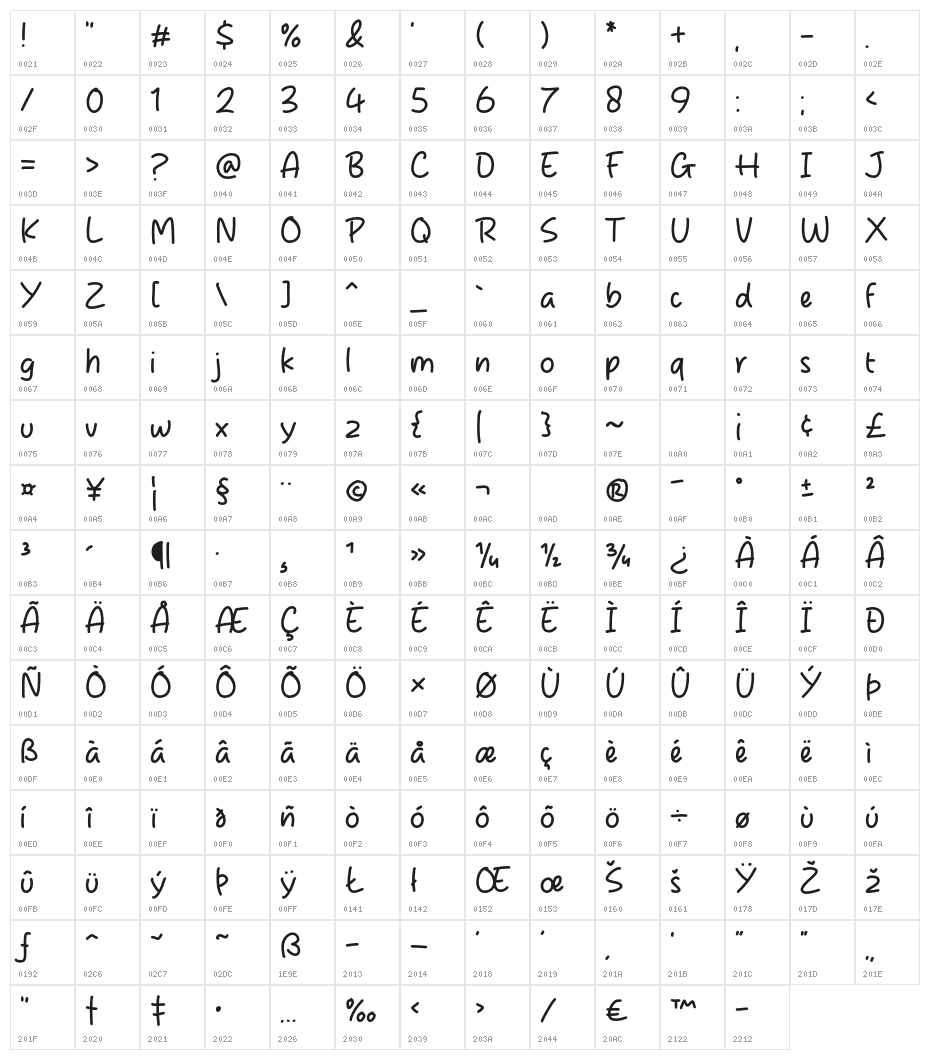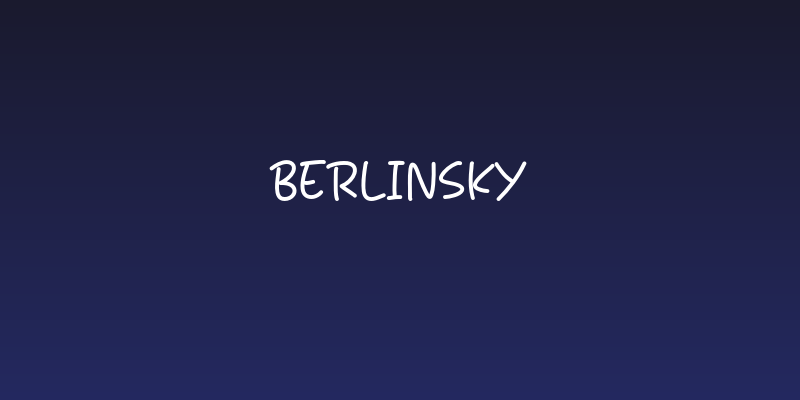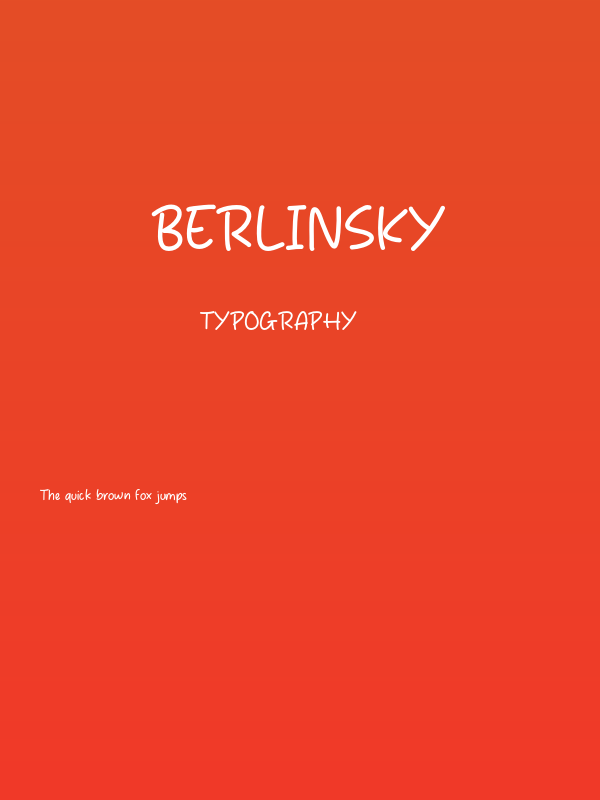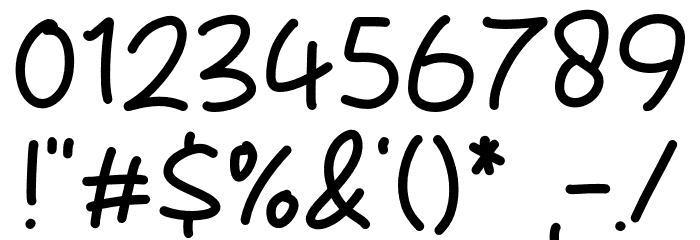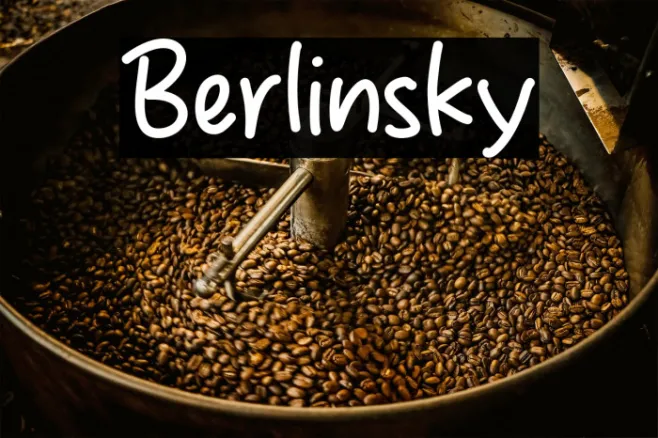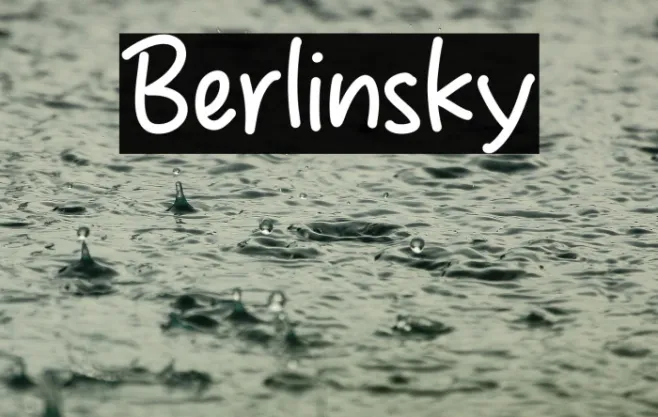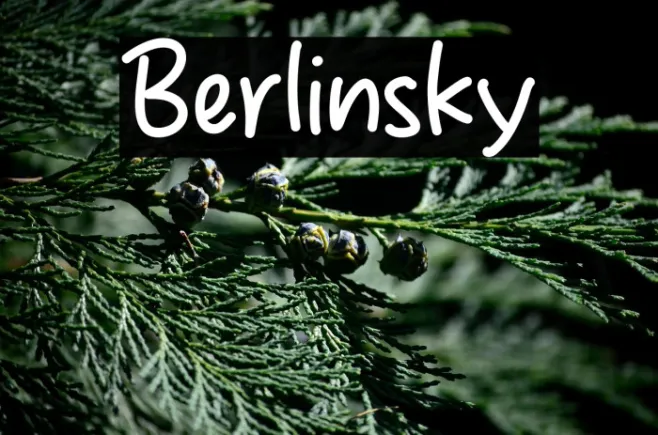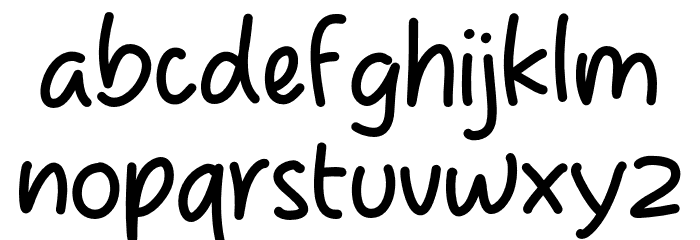
Berlinsky Font
Berlinsky Description
This font features a playful and casual handwritten style, characterized by smooth, rounded strokes and a friendly appearance. The letters are slightly irregular, giving it an authentic, hand-drawn feel. The uppercase and lowercase letters maintain a consistent flow, while the numerals and special characters complement the overall style. This font is versatile, suitable for projects that require a personal touch or a relaxed vibe. Its legibility and charm make it ideal for informal communications.
| Use Case | Headlines, Informal text, Personal projects |
| Proposed Projects | Greeting cards, children's books, casual invitations, social media graphics, and personal branding. |